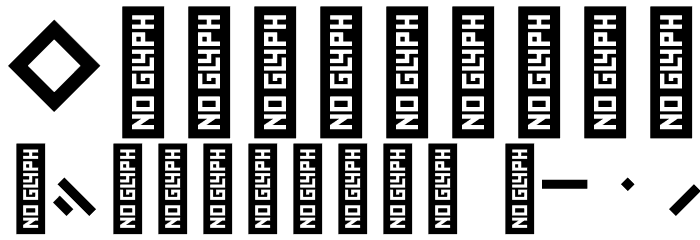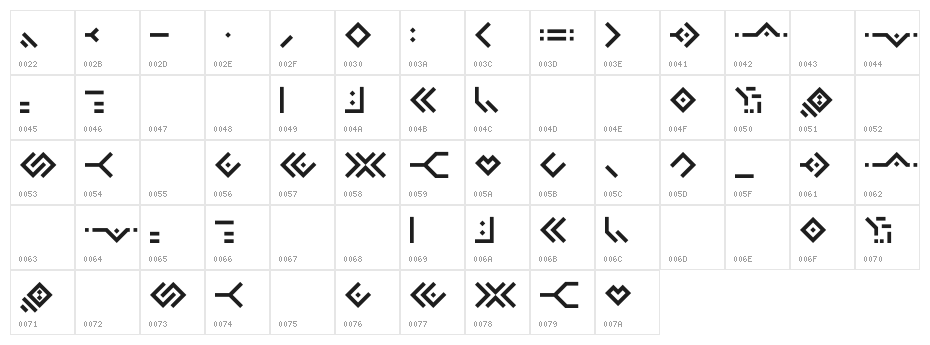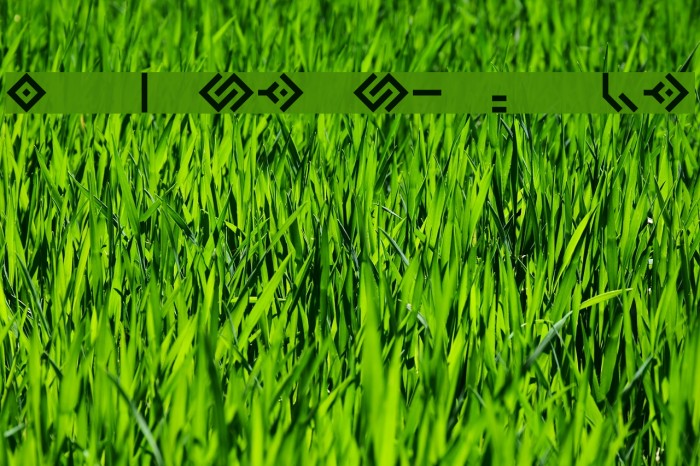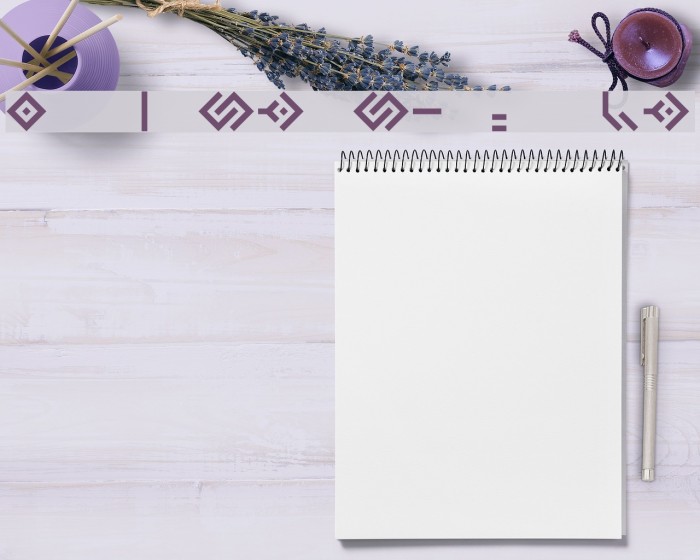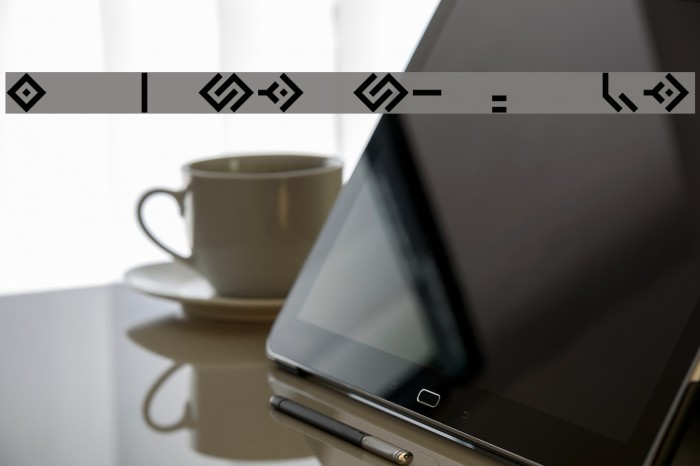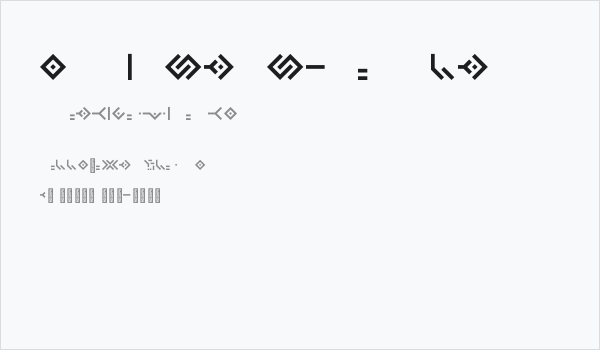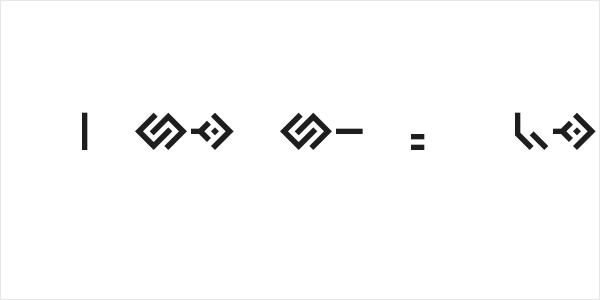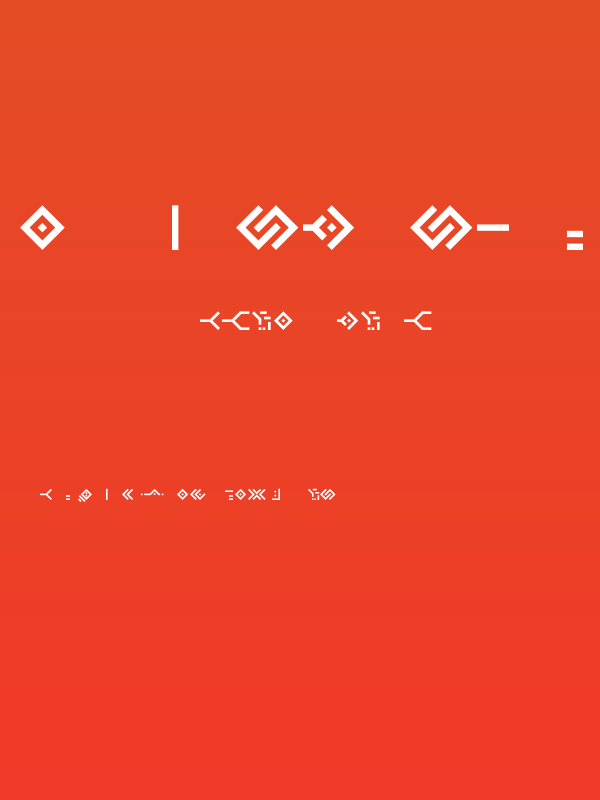
OmnicSans-Regular Font
OmnicSans-Regular Description
This font features a futuristic and abstract design, characterized by geometric shapes and lines that form each character. The style is highly decorative, with a focus on symmetry and angular forms. Each glyph is distinct, with a unique combination of dots, dashes, and angles, creating a visually intriguing and complex appearance. The font lacks traditional letterforms, opting instead for a symbolic representation that suggests a coded or alien language. This design choice makes it stand out as a display font, suitable for creative and unconventional projects.
| Overall Style | Futuristic, Abstract |
| Use Case | Logos, Posters, Titles |
| Proposed Projects | Ideal for sci-fi themed designs, video game interfaces, movie posters, or any project requiring a unique, otherworldly aesthetic. |